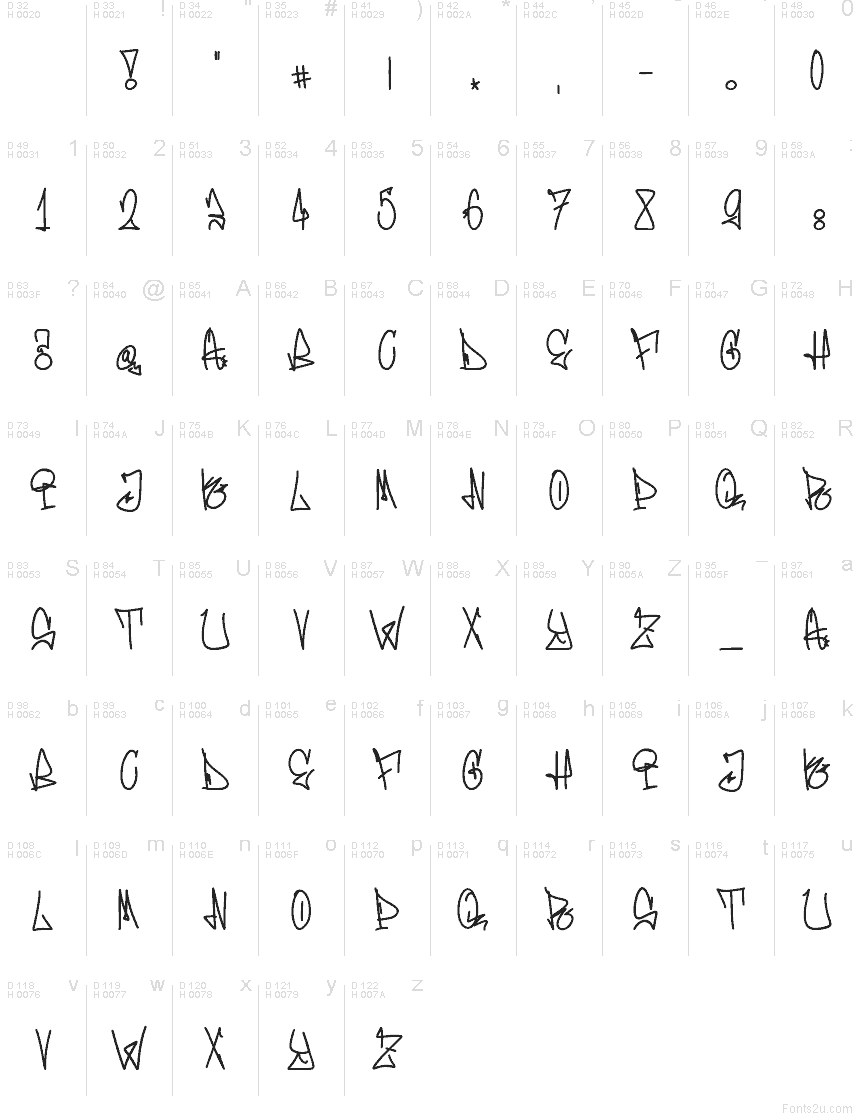
Glhf font by Pavel Novy is a free graffiti font that feels like it’s been ripped straight from a marker-tagged wall. Thin, wiry strokes loop and slash across the line, giving each word a rushed, in-the-moment energy. The letters sway and lean like real handstyle, messy in the best way-raw, spontaneous, and distinctly human.
Using Glhf, this free font shines on anything that needs a quick-hit, streetwise attitude: esports branding, stream overlays, stickers, flyers, album covers, or bold social thumbnails. It works best big and loud, where the scratchy contours and off-kilter rhythm can breathe. Pair it with a clean, neutral sans serif for supporting text to keep layouts readable while the graffiti logotype steals the spotlight.